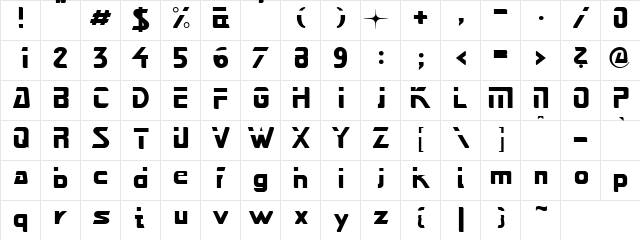
Pluto Regular
Design Context for Pluto Typeface
Pluto is a composed and adaptable typeface that performs quietly and consistently across a wide range of design contexts.